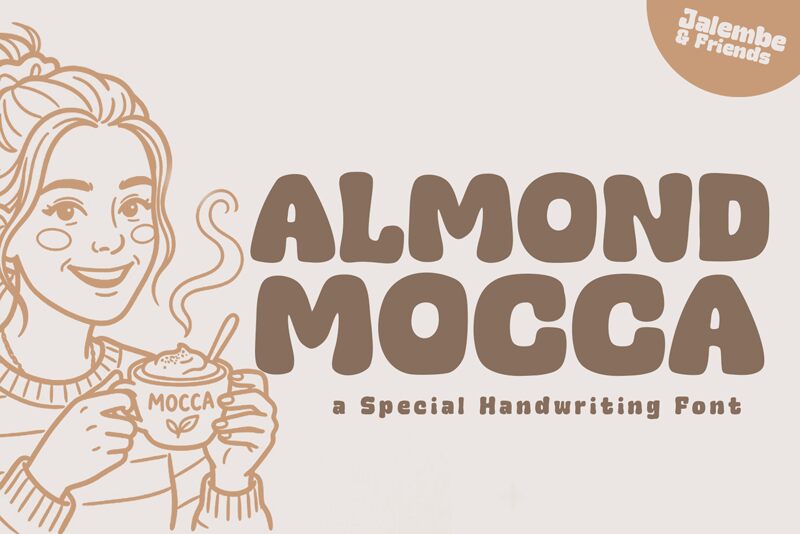
Almond Mocca font by Khurasan™ is a handwritten font based on cartoon themes. Its friendly and approachable look gives it a warm and at the same time whimsical feel. Almond Mocca is an informal font that’s bubbly, cute, and lovely. With curved and imperfect lines, it gives a playful and friendly aura to your projects and artworks.
Such a font would be a great match for children’s books, branding, packaging design, and posters. It would also look incredible on digital platforms including websites, posts, quotes, and advertisements.